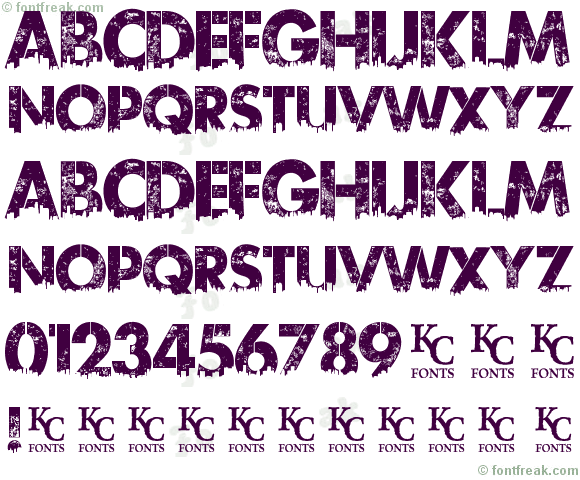
UrbanJungleDEMO
UrbanJungleDEMO by Kevin Christopher is a striking display font that falls within the decorative category. This font exhibits a unique urban aesthetic, characterized by its bold, irregular strokes that create a sense of movement and grit. The design features a combination of thick and thin lines, along with uneven edges, giving it a raw, street-inspired look. The spacing is deliberately varied, enhancing its dynamic feel and making it a captivating choice for projects that aim to convey energy and creativity.
This font is perfect for a variety of specific use cases, such as eye-catching movie posters that require a dramatic flair, trendy restaurant menus that want to evoke an urban vibe, and bold promotional materials for music events or festivals. It can also be an excellent choice for graphic designers looking to create impactful branding elements or merchandise aimed at a youthful audience. Additionally, content creators seeking to add a distinctive touch to their digital projects will find UrbanJungleDEMO to be an engaging choice.
The target audience for this font includes graphic designers, small business owners, and content creators who are looking to make a statement with their typography. UrbanJungleDEMO is especially appealing to those in creative industries, as it offers a fresh alternative to more traditional typefaces.
What sets the UrbanJungleDEMO font apart is its ability to encapsulate the spirit of urban life while maintaining versatility across various design applications. Its unique visual characteristics not only make it a standout choice for creative projects but also ensure that it will leave a lasting impression on viewers. For those interested, the UrbanJungleDEMO font free download is available, allowing you to incorporate this distinctive typeface into your work effortlessly.